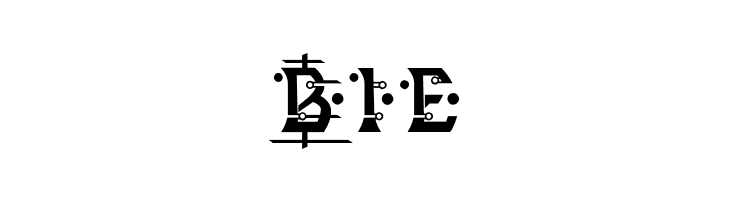
• AmazGoDa
( Fonts by Amazingmax - Maxim Avdeev )
A playful, rounded font with bold, smooth characters and a friendly style.
• AmazGoDaBold
( Fonts by Amazingmax - Maxim Avdeev )
A bold, slanted font with rounded, smooth characters for a modern look.
• AmazGoDaMat
( Fonts by Amazingmax - Maxim Avdeev )
A playful, rounded font with bold, smooth curves and a friendly appearance.
• AmazGoDaMatBold
( Fonts by Amazingmax - Maxim Avdeev )
A bold, dynamic font with rounded edges and a playful, italicized style.
• AmazHacker
( Fonts by Amazingmax - Maxim Avdeev )
A pixelated, geometric font with a retro digital style.
• AmazHand_First
( Fonts by Amazingmax - Maxim Avdeev )
A bold, hand-drawn font with an expressive and dynamic style.
• AmazHand_First_Alt
( Fonts by Amazingmax - Maxim Avdeev )
A bold, hand-drawn font with an expressive, dynamic style.
• AmazHand_First_Alt_X
( Fonts by Amazingmax - Maxim Avdeev )
A bold, expressive handwritten font with dynamic, irregular strokes.
• AmazHand_First_Hard
( Fonts by Amazingmax - Maxim Avdeev )
A bold, hand-drawn font with rugged, expressive strokes.
• AmazHand_First_Smooth
( Fonts by Amazingmax - Maxim Avdeev )
A bold, hand-drawn font with an expressive and artistic style.
• AMazing
• Amazing Books
A bold, expressive brush-style font with a hand-painted look.
• Amazing Bro Medium
( Fonts by Kristian Immonen )
A playful, hand-drawn font with irregular strokes and a casual aesthetic.
• Amazing Day Everyday
• AMAZING FONTASY
A bold, playful font with spider icons for a whimsical touch.
• Amazing Grotesk
• Amazing Grotesk DemiBold
A modern, geometric typeface with a clean and professional appearance.